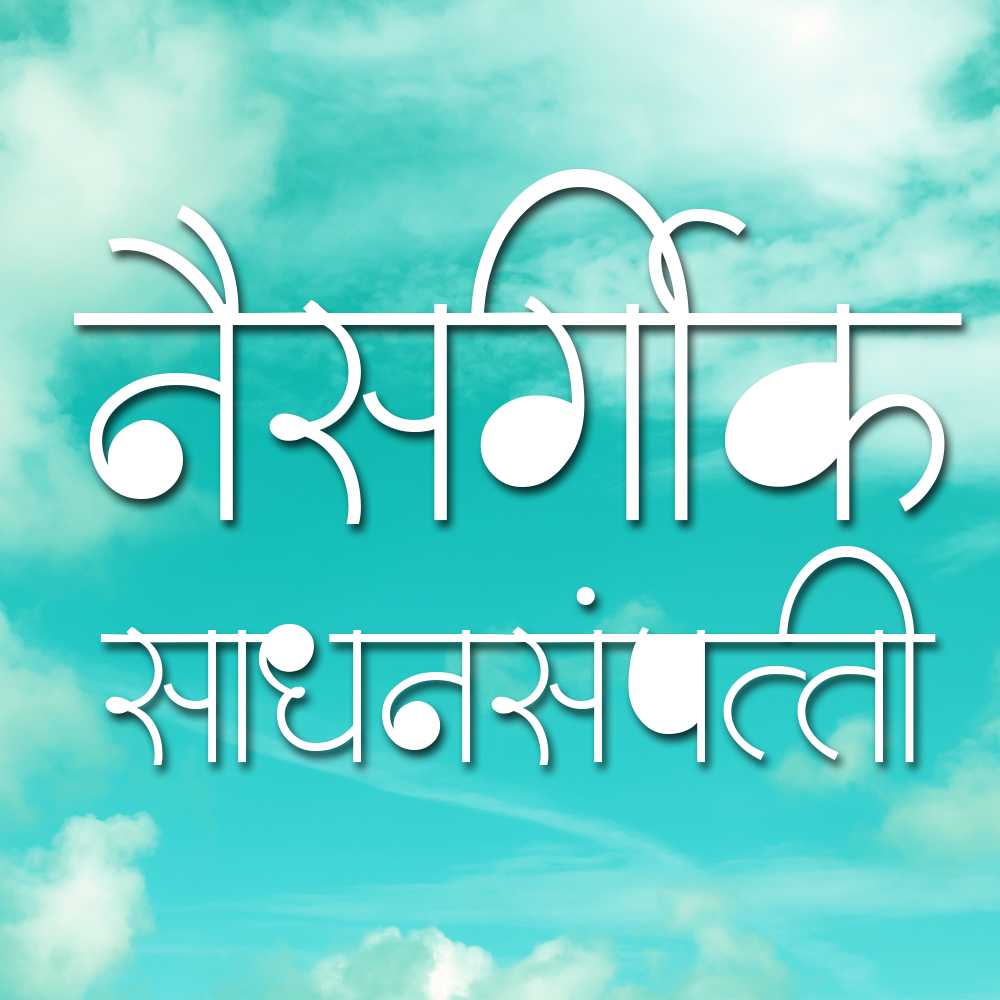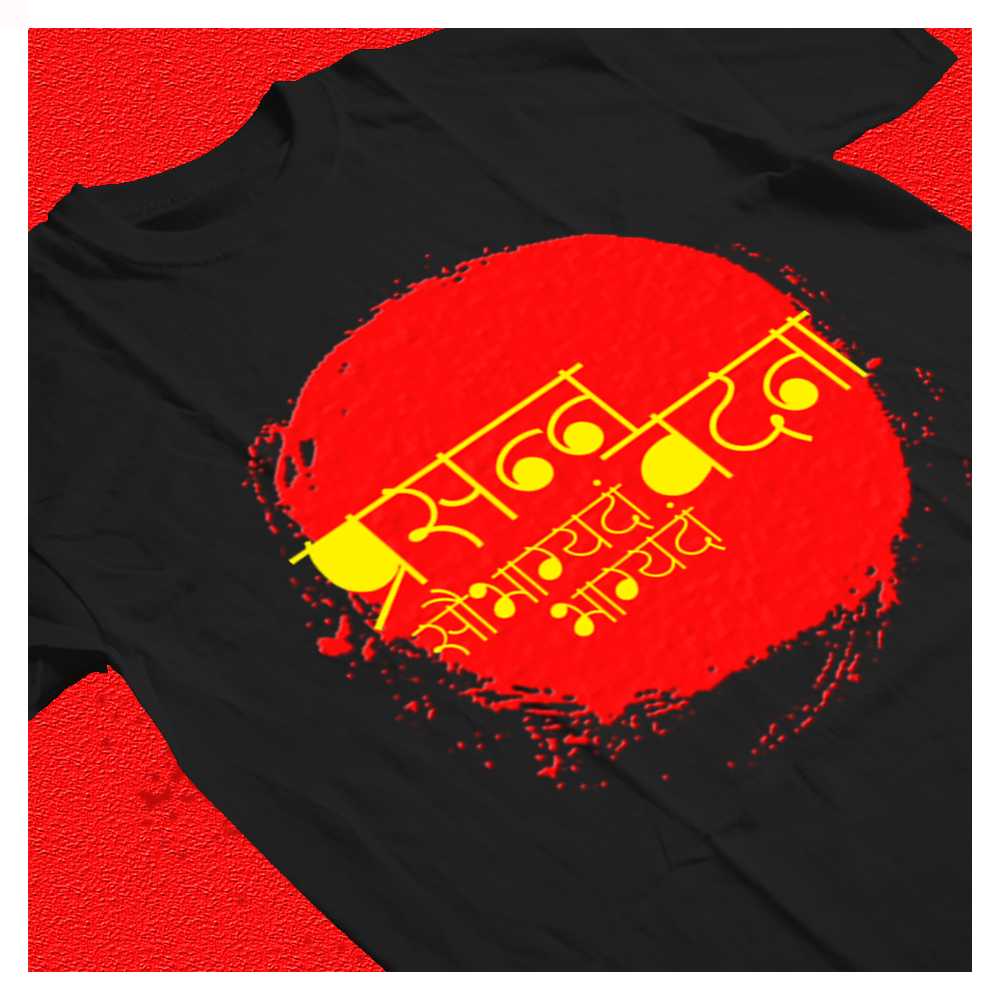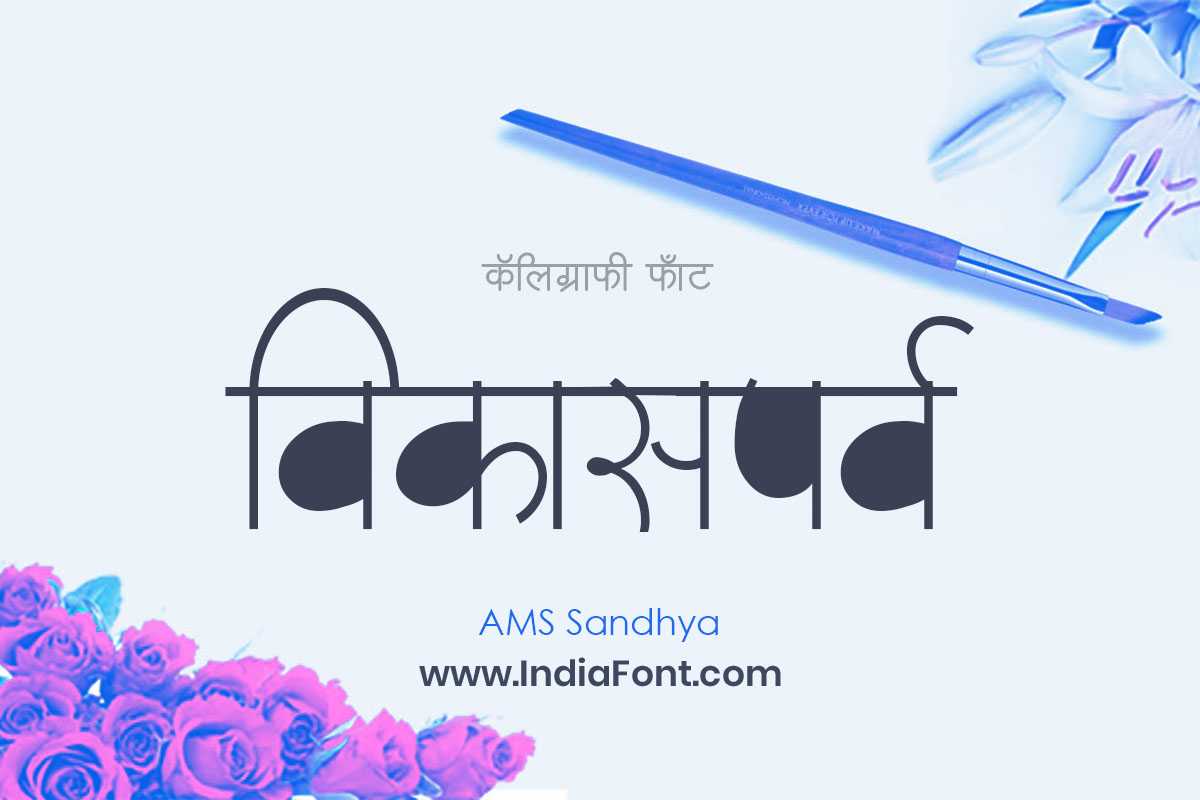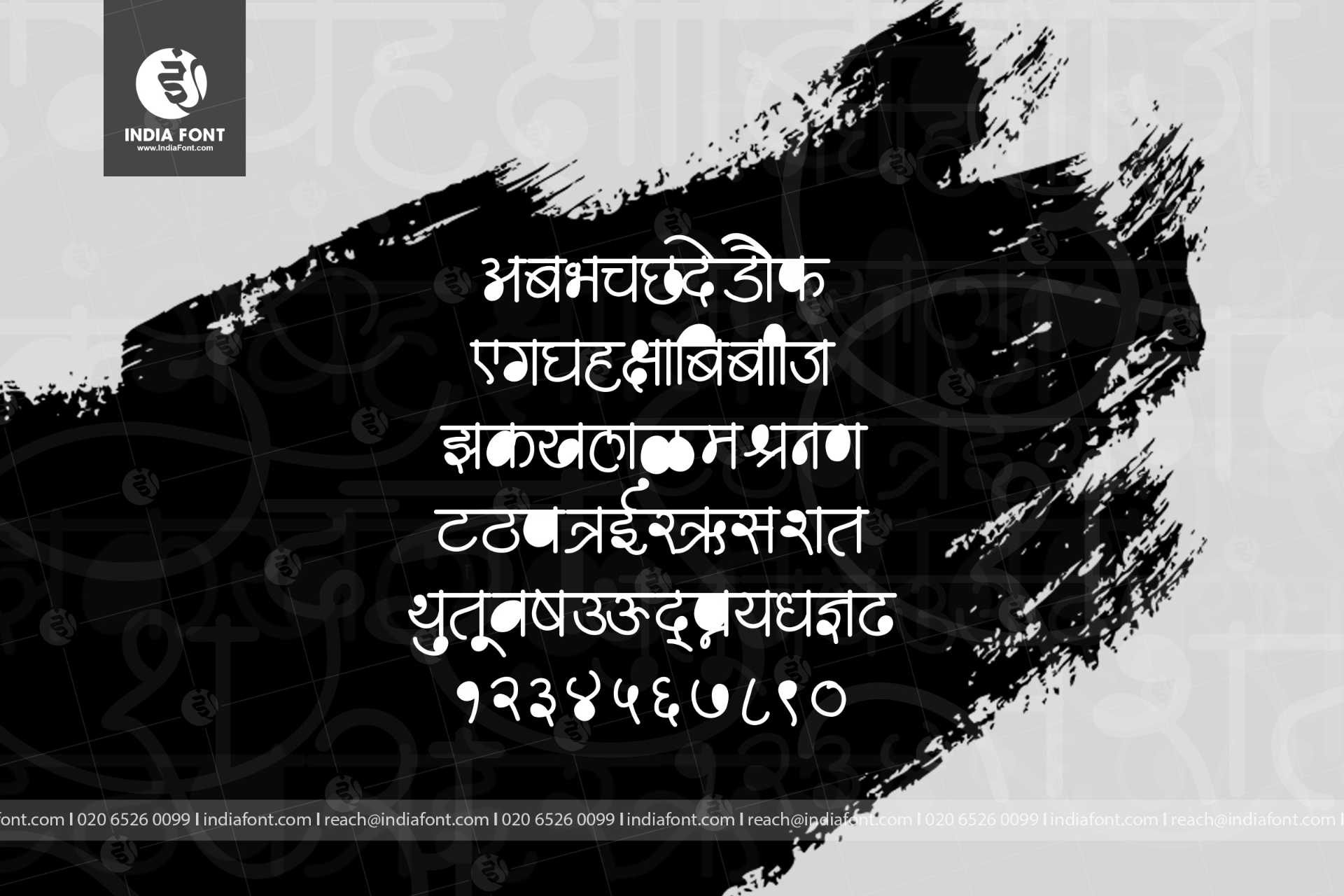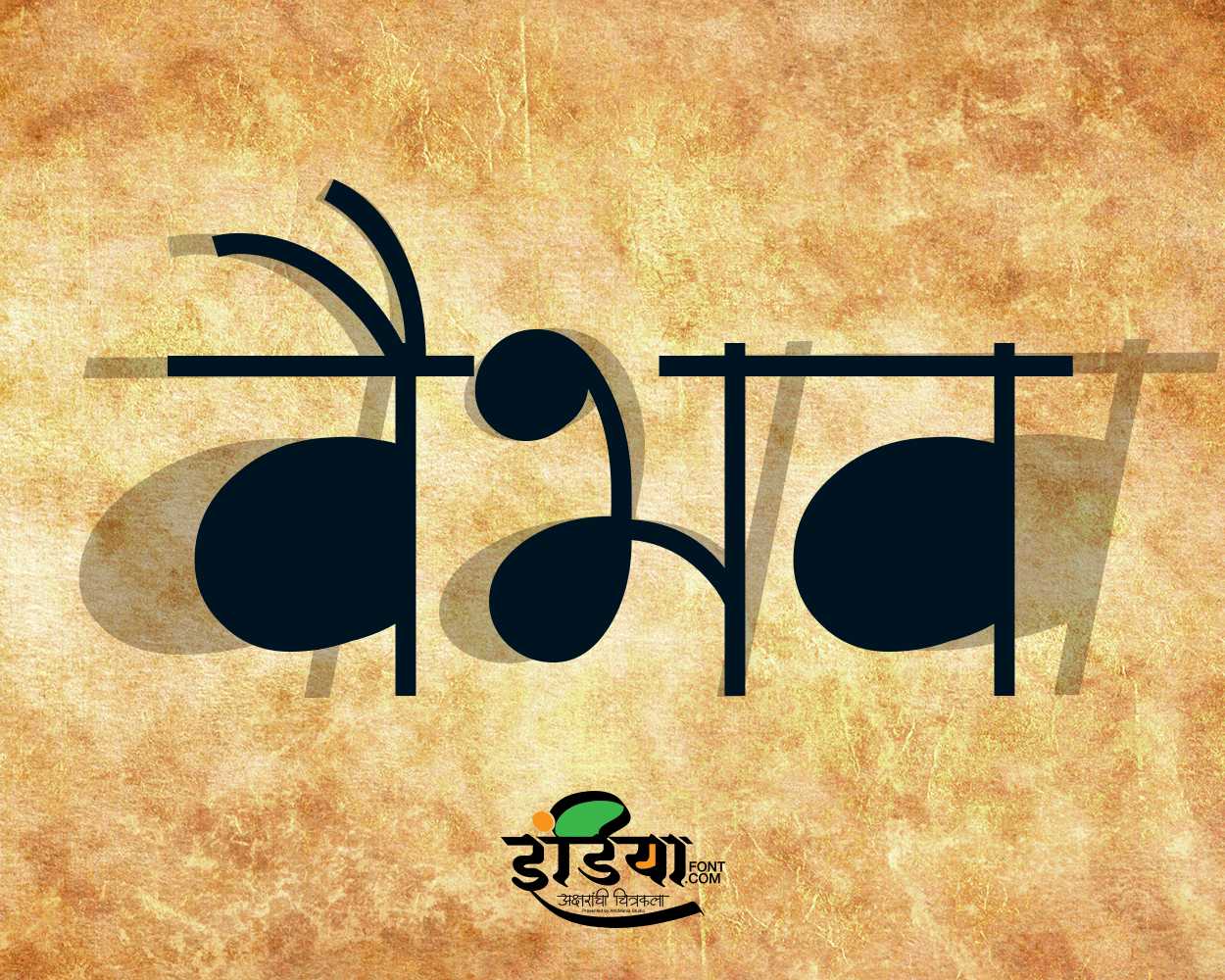
AMS Sandhya
Immerse your designs in the warm glow of AMS Sandhya Font, a decorative font that captures the essence of beauty and radiance. Whether you're seeking stylish Hindi fonts, decorative fonts with a unique flair, or fonts available for free font download, AMS Sandhya adds a touch of elegance to your projects.
About AMS Sandhya Font
Immerse your designs in the warm glow of AMS Sandhya Font, a decorative font that captures the essence of beauty and radiance. Whether you're seeking stylish Hindi fonts, decorative fonts with a unique flair, or fonts available for free font download, AMS Sandhya adds a touch of elegance to your projects. This decorative font combines elegance with functionality, making it perfect for various design applications.
AMS Sandhya is a professionally crafted decorative typeface that brings clarity and style to your projects. Designed with attention to detail, it supports hindi and marathi characters flawlessly.
Whether you're working on headers-titles, logos, posters, or other creative projects, AMS Sandhya delivers consistent performance across both digital and print media. This carefully designed typeface ensures readability and visual appeal in all your design work.
About AMS Sandhya Typography Style
AMS Sandhya is a professionally crafted decorative font that exemplifies modern Hindi typography design. This free font is perfect for designers seeking professional branding and logo design projects.
Available in 1 weight and supporting hindi, marathi scripts, AMS Sandhya offers exceptional versatility for both digital and print media. Whether you're working on headers-titles, logos, posters, this carefully designed typeface ensures consistent quality and professional results across all your typography projects.